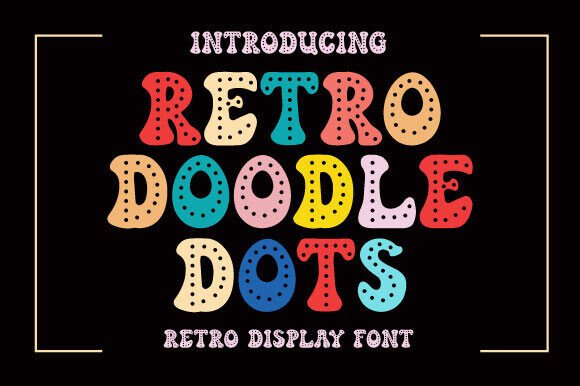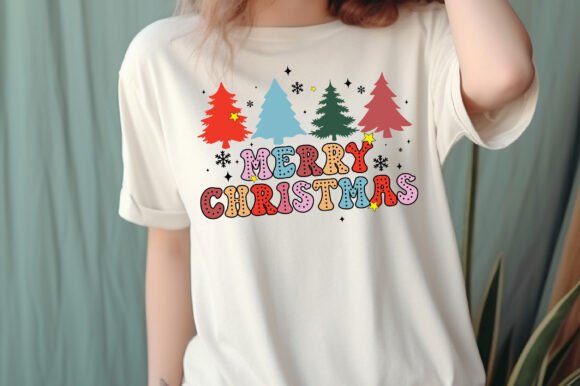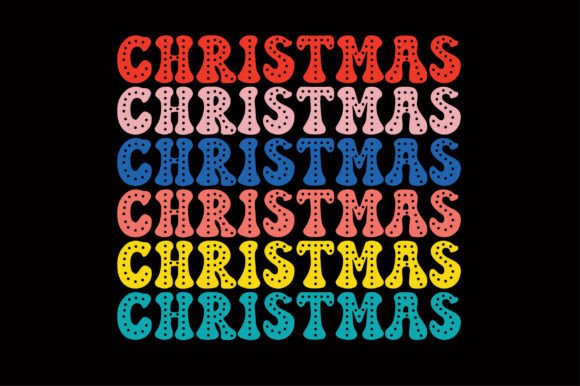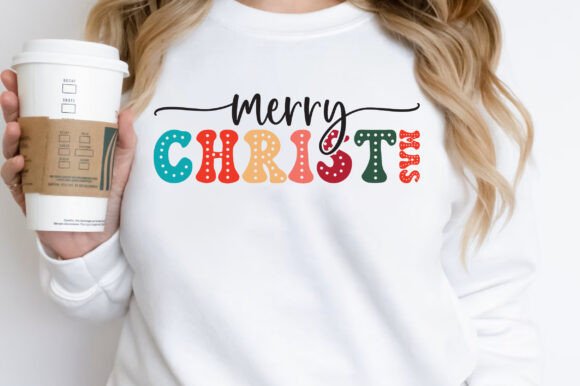
Retro Doodle Dots Font
About the Retro Doodle Dots Font
The Retro Doodle Dots Font offers a perfect balance of form and function for your design needs. Retro Doodle Dots is a playful groovy style display font. Its whimsical beauty and orderly typeface make it attractive. It’s perfect for any funny project. Its clear pronunciation makes it more attractive. Definitely innovative, especially for Christmas and Easter projects.
Use it in your designs now to realize its beauty.
Retro Doodle Dots excels as a display font for headlines, short slogans, and playful branding elements. It’s ideal for projects targeting a younger demographic or those with a vintage, retro aesthetic, such as posters, greeting cards, or packaging for whimsical products. However, its low x-height and decorative elements make it unsuitable for body text or UI applications requiring high readability.
Pairing it with a clean sans-serif like Open Sans for body copy creates a balanced contrast, while a simple serif like Merriweather can add a touch of sophistication. For a more playful approach, consider pairing it with a rounded geometric sans-serif font.
The font’s personality is undeniably playful and friendly, with a touch of retro charm. Its bold, slightly quirky character makes it a strong choice for projects emphasizing fun and nostalgia.
Retro Doodle Dots Font Usage Examples
Retro Doodle Dots Font Example